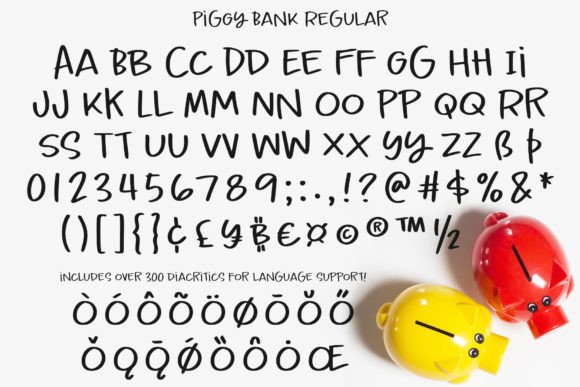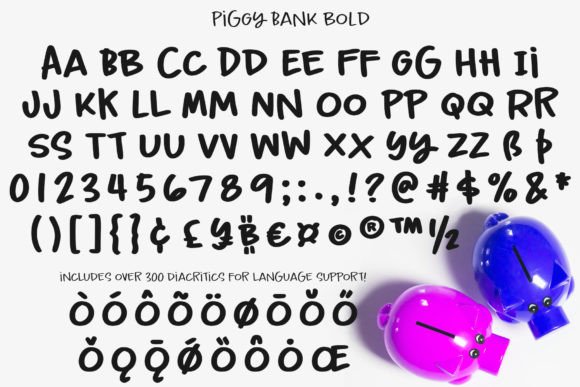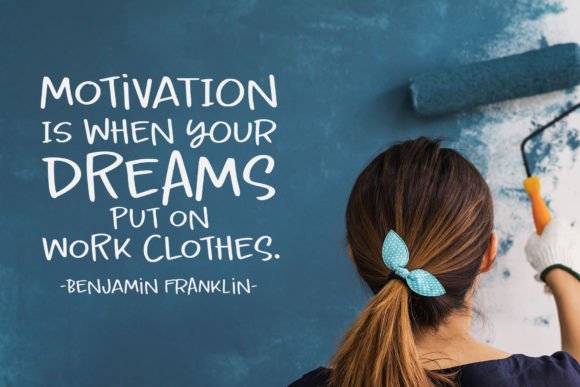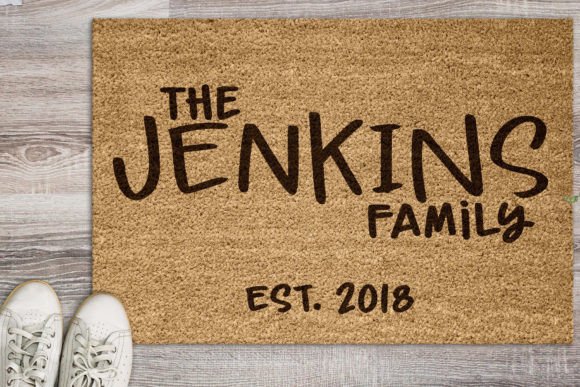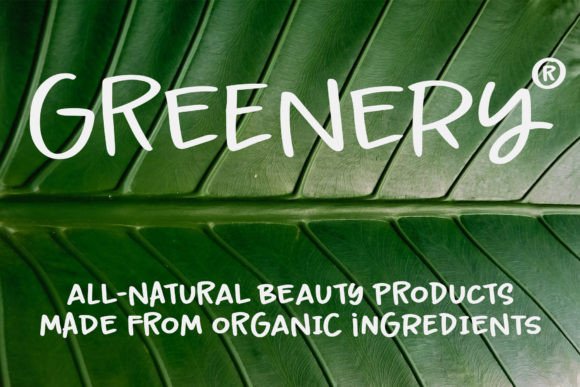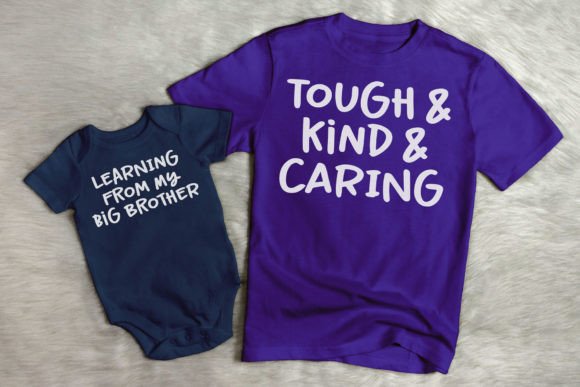
Introduction to Piggy Bank Font
Who among us hasn’t had a moment of creative spark when brainstorming ideas for a new project? Maybe it was a trip to the beach, a conversation with a friend, or simply staring at a blank canvas. For designers, those moments are what fuel our passion and drive us to create something truly special. And when it comes to crafting a design that’s both fun and professional, the right font can make all the difference.
Enter the Piggy Bank Font, a delightful and versatile handwriting font that’s perfect for a wide range of creative projects. With its smooth, cleaned lines and crisp edges, Piggy Bank Font is a design resource that’s both high-quality and easy to work with – whether you’re a seasoned pro or just starting out.
Piggy Bank Font
- Designed to be versatile and adaptable, suitable for a wide range of creative projects
Honest Review: Piggy Bank Font
I recently stumbled upon the Piggy Bank Font, and I must say it’s been a game-changer for my creative projects. The high quality design resource is perfect for those looking to add a touch of whimsy and playfulness to their work.
One of the things that stands out about the Piggy Bank Font is its versatility. It’s perfect for designing children’s books, birthday party invitations, and even advertisements. The font is also available for free download, making it a great option for designers on a budget.
Here are some of the things that work well with the Piggy Bank Font:
- ✨ Cute and playful design that’s perfect for children’s projects
- ✨ Transparent background, making it easy to use with different backgrounds
- ⚠️ Limited character set, making it less suitable for longer blocks of text
- ⚠️ Not ideal for formal or professional projects
Overall, I’m impressed with the Piggy Bank Font. It’s a fun and creative design resource that’s perfect for those looking to add a touch of whimsy to their work. While it may not be suitable for every project, it’s definitely worth checking out for designers who want to add a little extra flair to their designs.
Getting the Most Out of Piggy Bank Font
To get the most out of the Piggy Bank Font, experiment with different font sizes, colors, and styles. You can also use it in combination with other design elements to create a unique look. Don’t be afraid to think outside the box and try new things!
Common Use Cases for Piggy Bank Font
The Piggy Bank Font is perfect for a wide range of creative projects, including graphic design, digital art, and even branding. It’s also great for adding a fun touch to educational materials, marketing materials, and more.